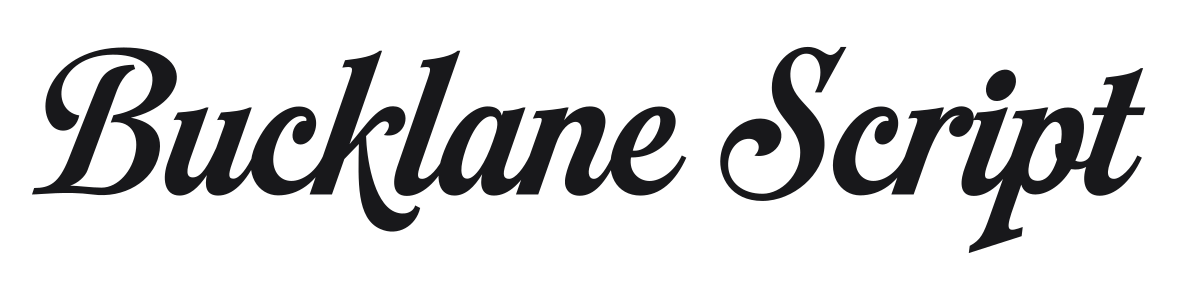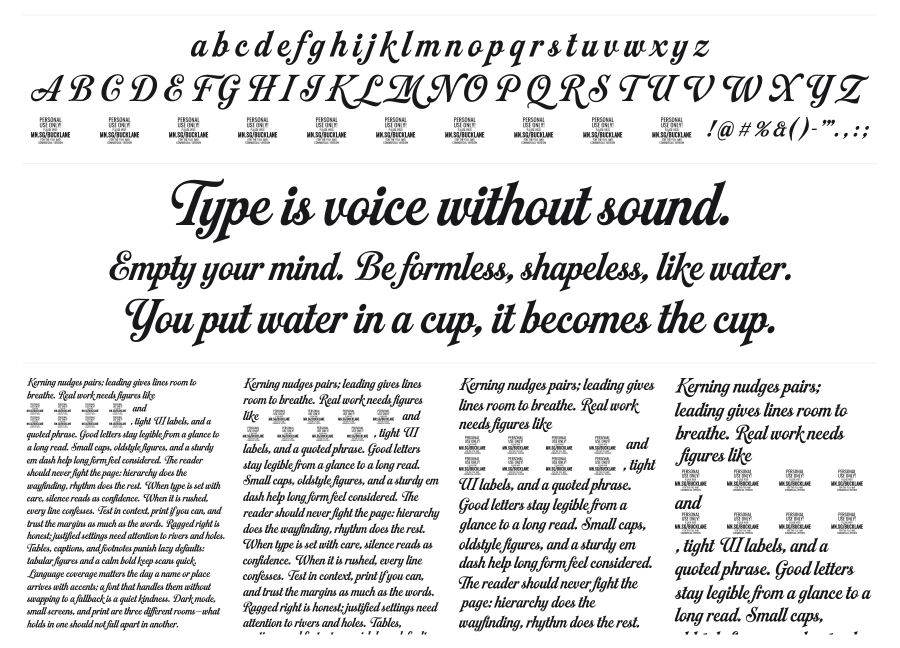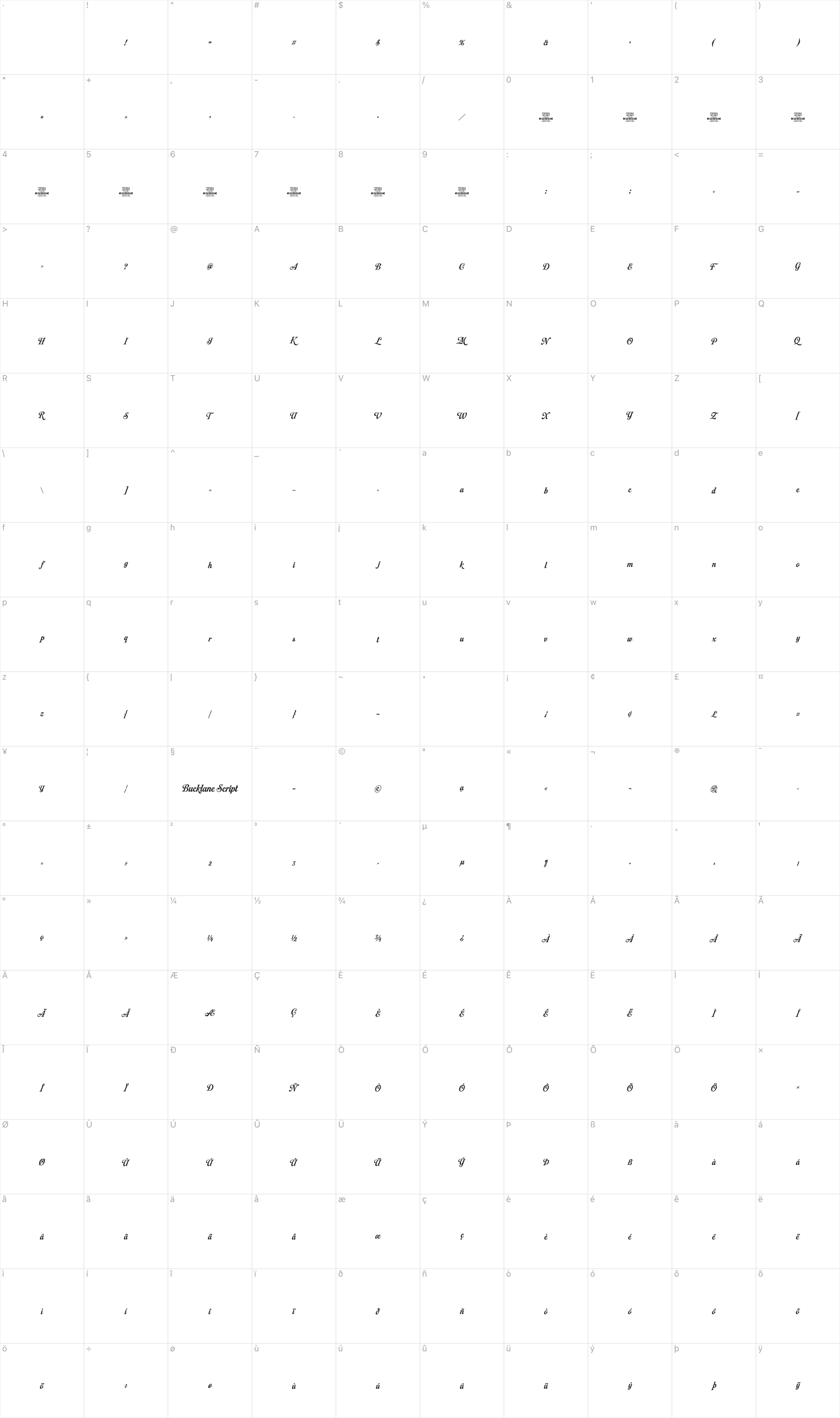
Bucklane Script
Bucklane Script is a bold calligraphic script rooted in mid-20th-century sign painting tradition. Heavy, fluid strokes meet sharp high-contrast hairlines, and the ornate swash capitals carry real personality without tipping into illegibility. It has the swagger of a vintage label or neon marquee, with enough contemporary sharpness to stay relevant.